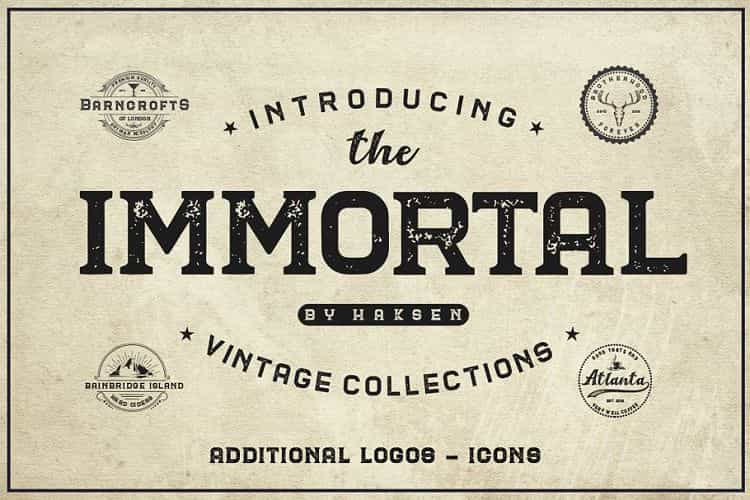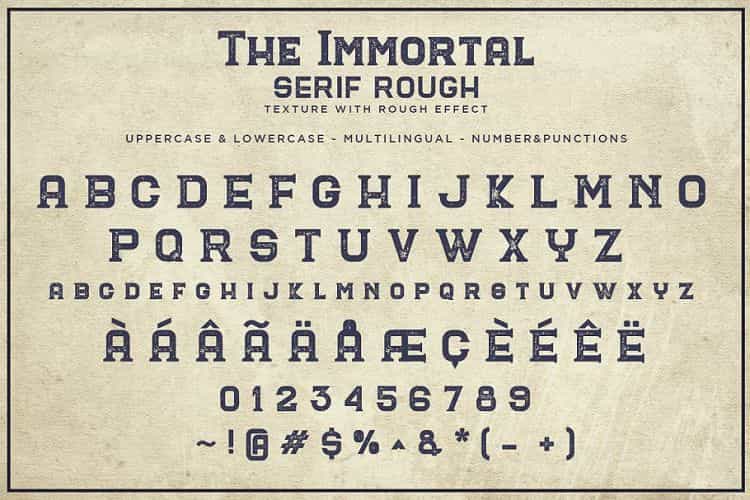
Introducing The Immortal Font. The fonts have the look of vintage brick wall murals and they are great for logo, packaging or title design with a hand crafted feel. Besides, the product has a collection of 15 editable logo templates for Adobe Illustrator (CS & CC) and more than 18 hand drawn icons!!This makes logo & badge design a piece of cake.